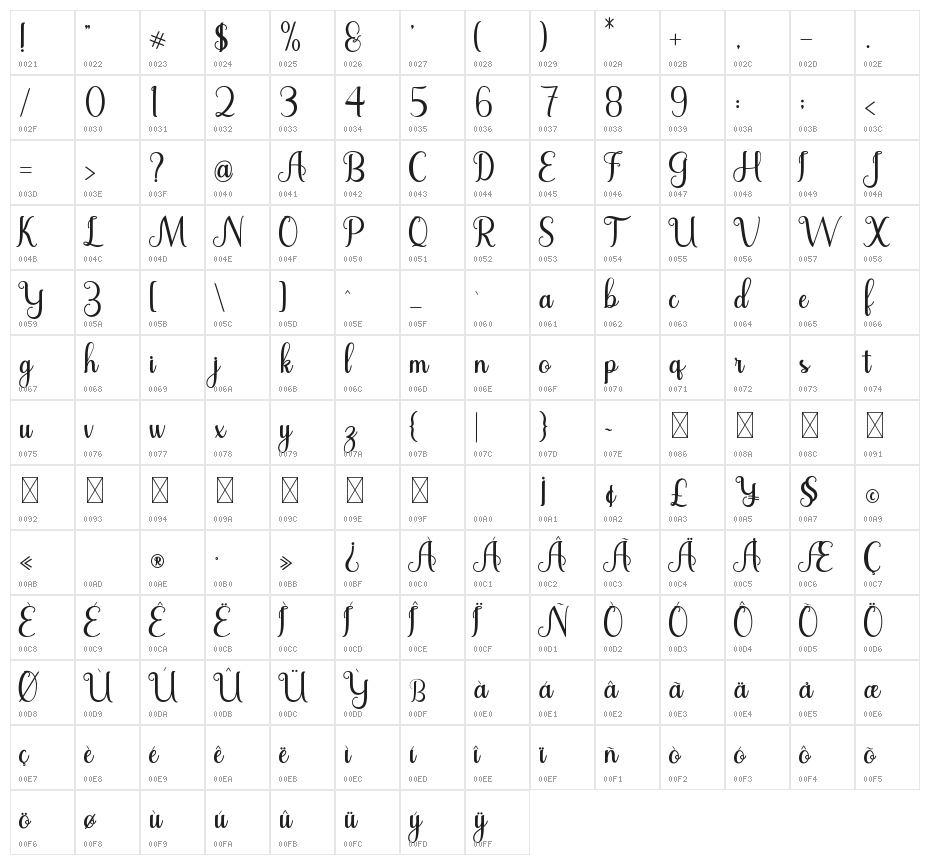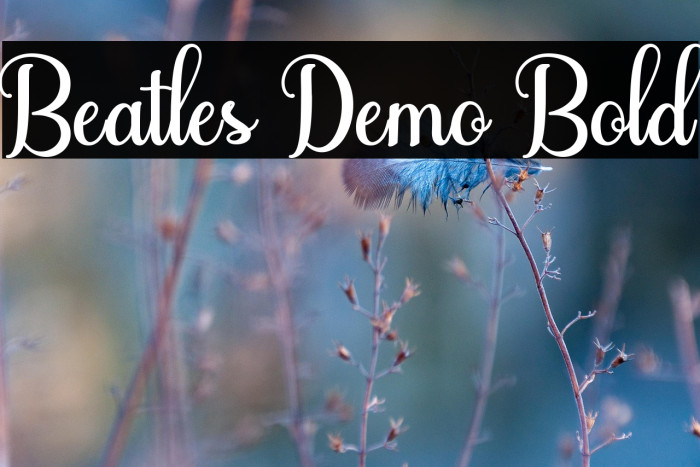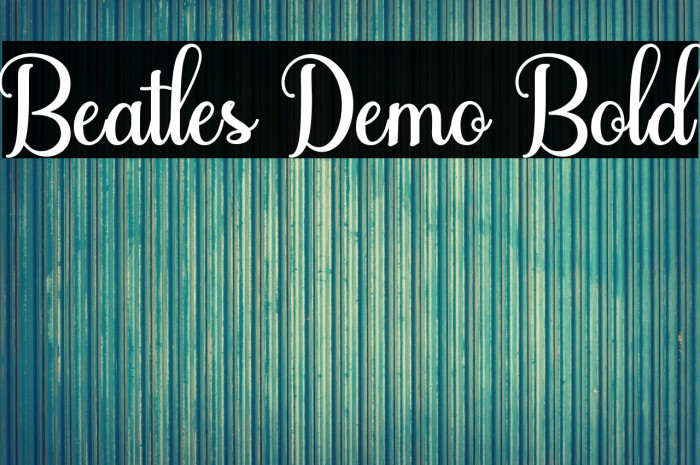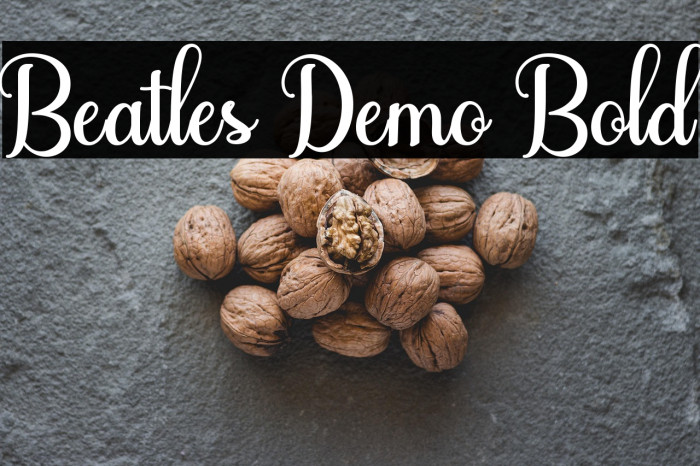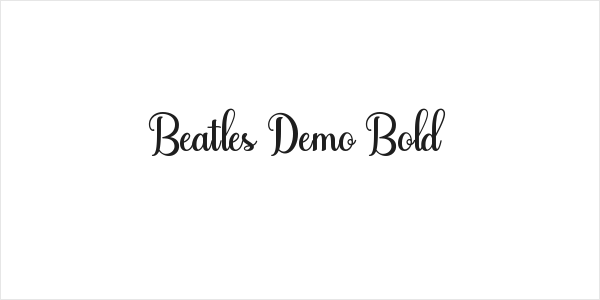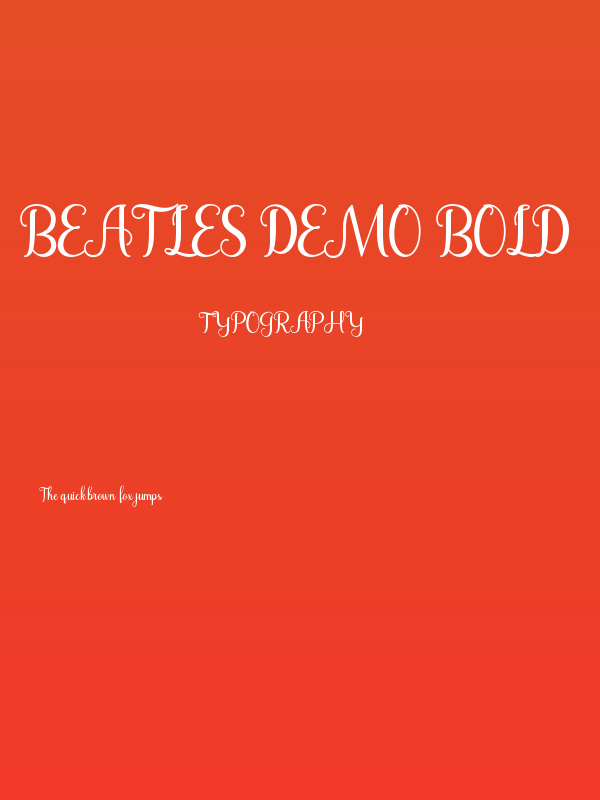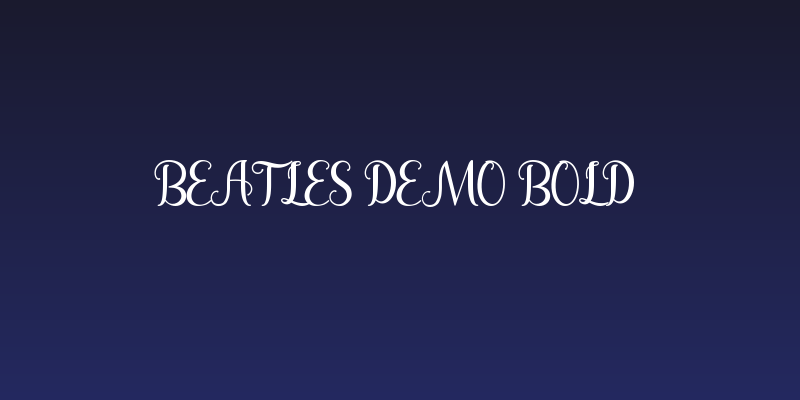
Beatles Demo Bold Font
Beatles Demo Bold Description
This font features a playful and elegant script style with a bold presence. The uppercase letters are characterized by their flowing, cursive forms, while the lowercase letters maintain a consistent, smooth curvature. The numerals are distinct and easy to read, with a slight slant that complements the overall script style. Special characters are designed with the same fluidity, ensuring a cohesive look across all glyphs. The font's bold weight enhances its visibility, making it suitable for various decorative purposes.